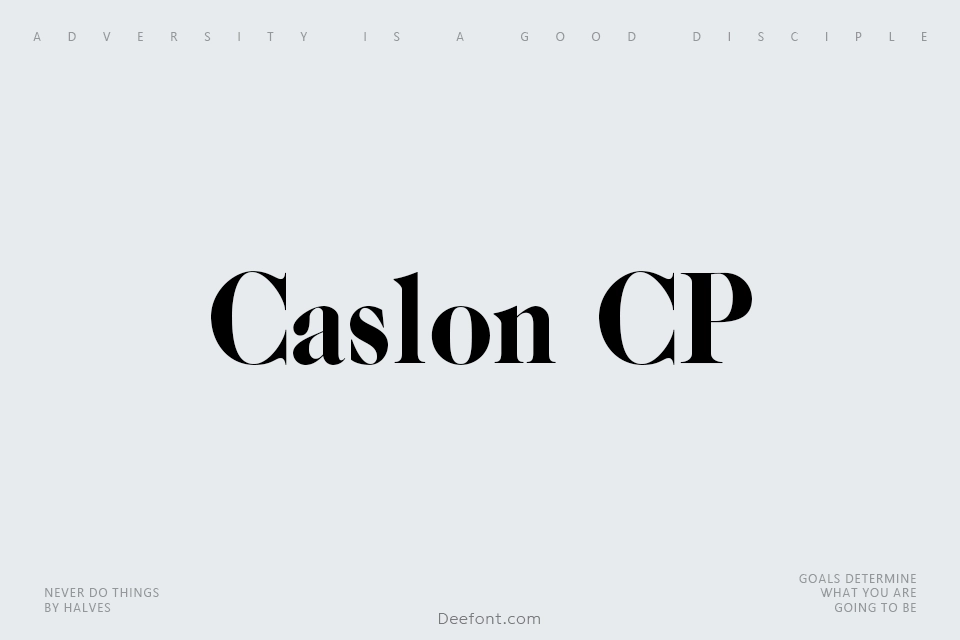
Caslon CP Font
Caslon CP is a vintage serif font that combines classical elegance with modern minimalism. Created by ClaudeP, this sophisticated typeface features two styles: Caslon CP regular and Caslon CPswash. With its characteristic high horizontal crossbar and distinctive serif details, it brings a fresh and innovative approach to traditional serif design. Perfect for branding, logos, greeting cards, book covers, websites, and elegant typography projects that require a touch of vintage sophistication and trustworthy aesthetics.
Designed by:Claude Pelletier